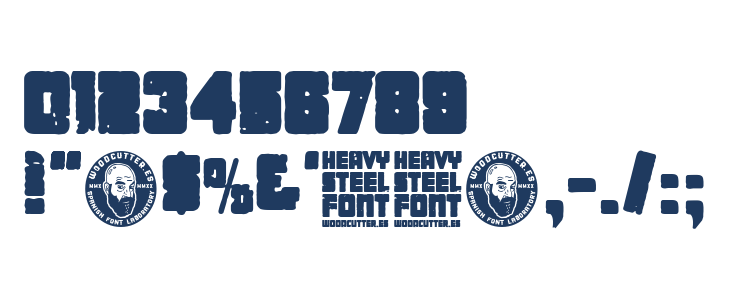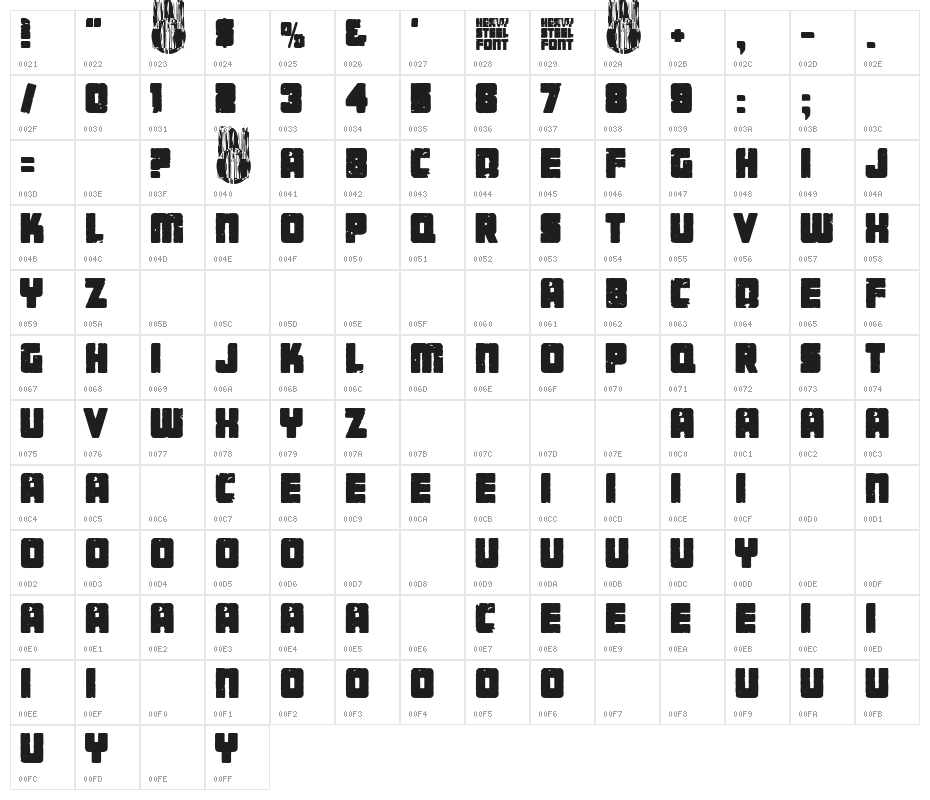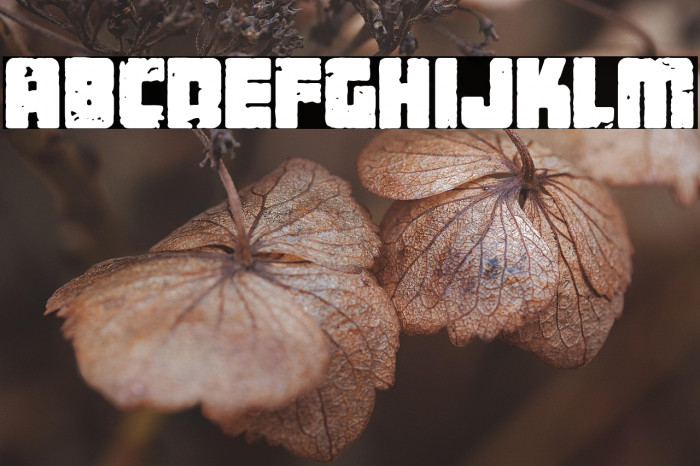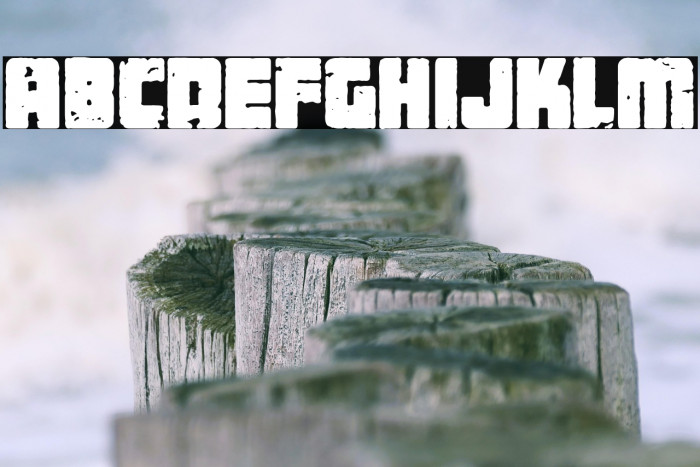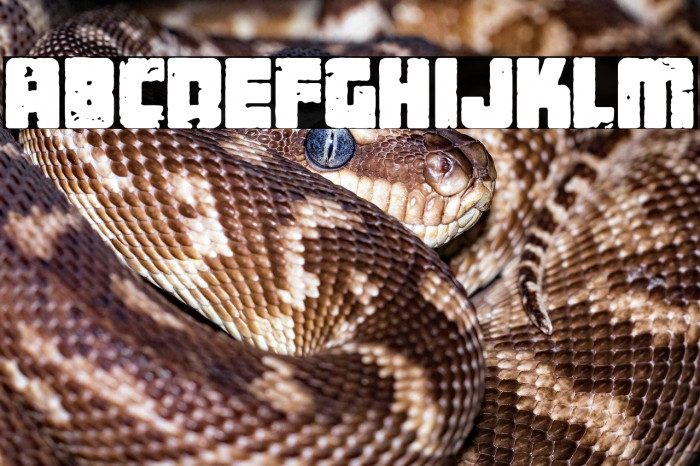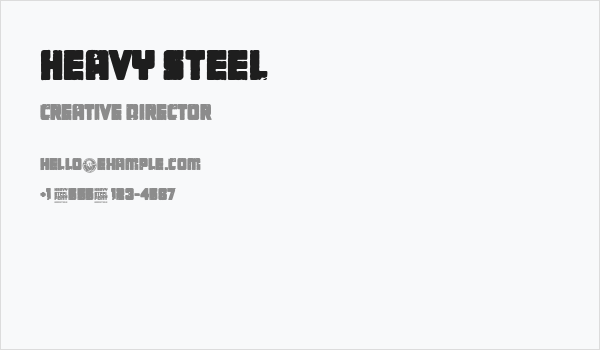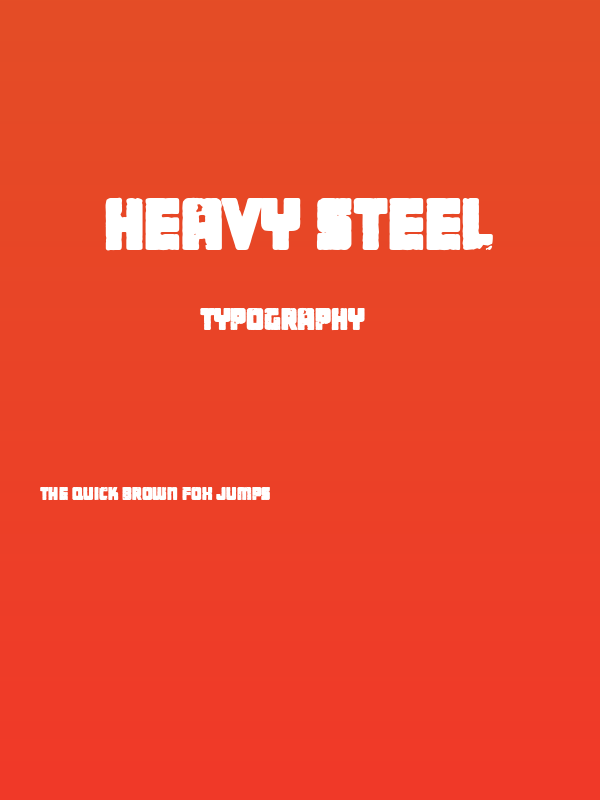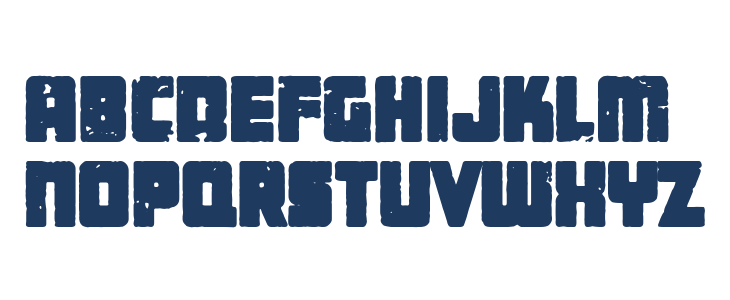
Heavy Steel Font
Heavy Steel Description
This font features a bold and rugged design, characterized by its distressed and textured appearance. The letters are blocky and robust, with a heavy weight that gives them a strong presence. The edges are rough and uneven, adding a gritty, industrial feel. This style is reminiscent of worn metal or weathered wood, making it ideal for projects that require a tough, masculine aesthetic. The font includes uppercase letters, numbers, and a selection of special characters, all maintaining the same distressed style.
| Overall Style | Industrial, Rugged, Distressed |
| Use Case | Logos, Posters, Branding |
| Proposed Projects | Ideal for posters, logos, branding for industrial or outdoor products, and any design needing a strong, gritty aesthetic. |